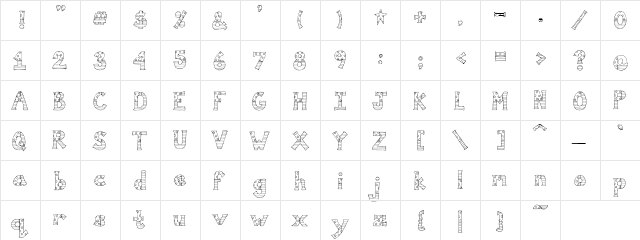
PC Stars and Stripes Regular
Design Context for PC Stars and Stripes Typeface
PC Stars and Stripes is a composed and adaptable typeface that performs quietly and consistently across a wide range of design contexts.